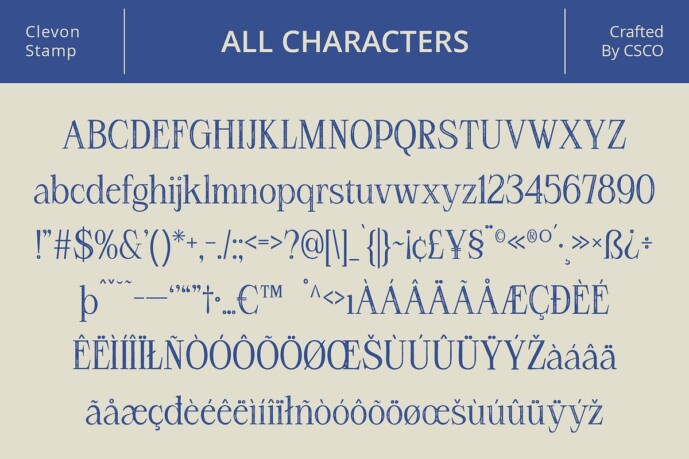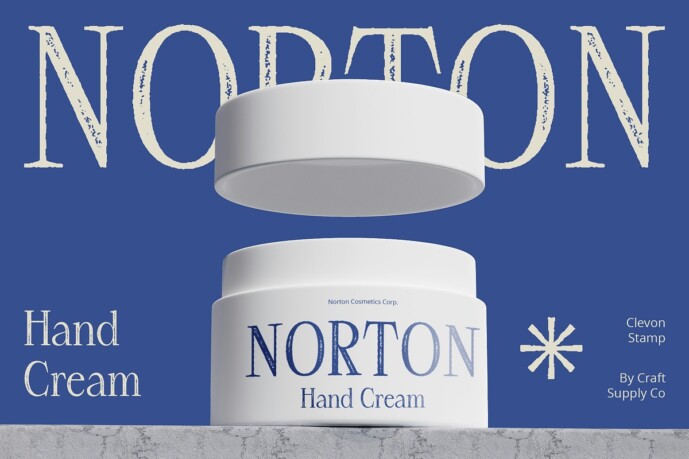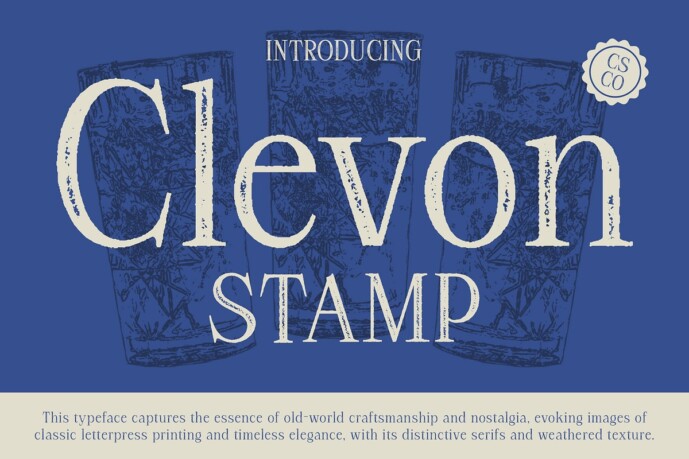
Clevon Stamp Font
Designer: Craft Supply Co.
Clevon Stamp Font: Vintage Charm in Typography. Distinctive Serif Design This font features a unique high-contrast serif design that captures attention with its bold and distinct appearance.
Vintage Appeal with Stamp Effect Embracing a vintage aesthetic, This font adds nostalgia to any design with its captivating stamp effect, reminiscent of retro typography.
Perfect for Retro Vibes Tailored for vintage and retro-themed designs, This font brings authenticity and charm to posters, labels, and branding materials.
Elevate Your Designs with Clevon Stamp Infuse your designs with a touch of vintage elegance and nostalgia using This font. Its high contrast serif design and stamp effect offer a perfect blend of classic and contemporary style.
Vintage Elegance for Modern Design This font combines a distinctive high-contrast serif design with a charming stamp effect, making it ideal for vintage and retro-themed designs. Elevate your projects with its nostalgic appeal and timeless elegance.